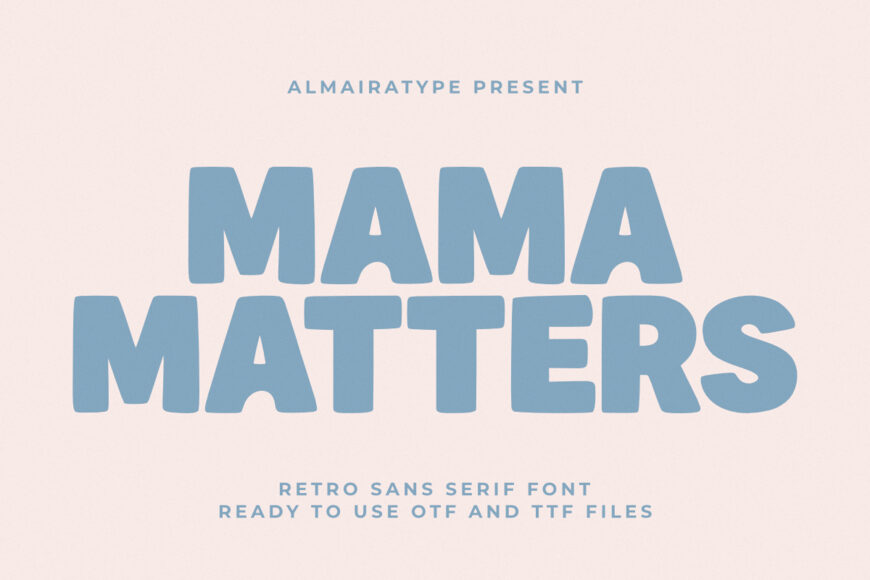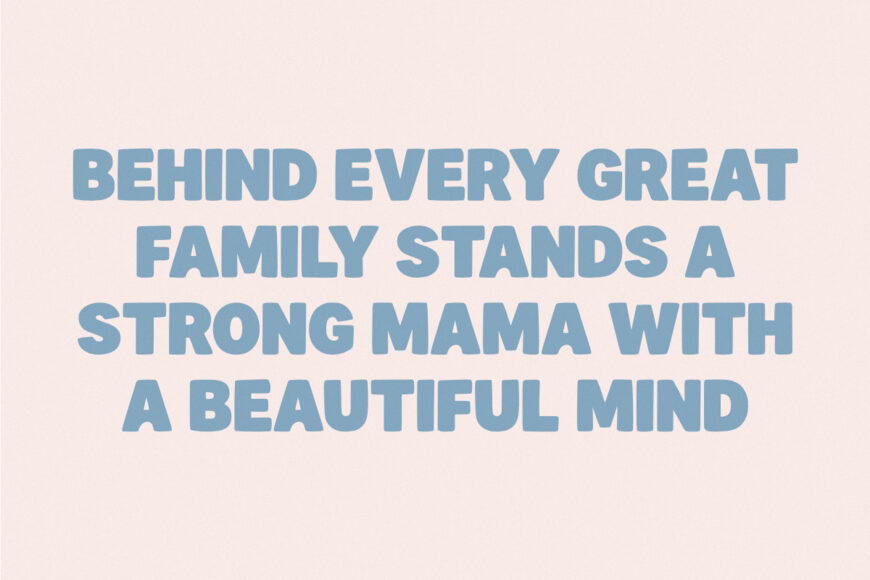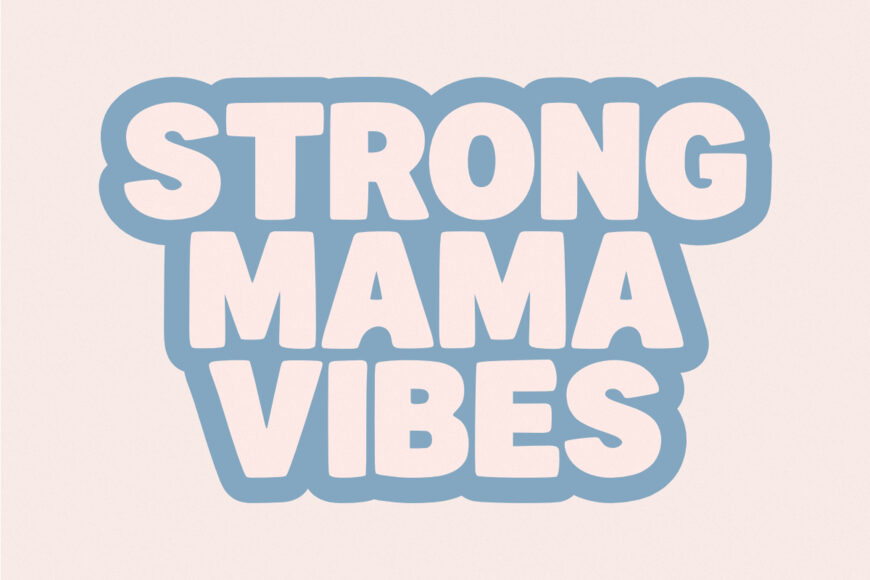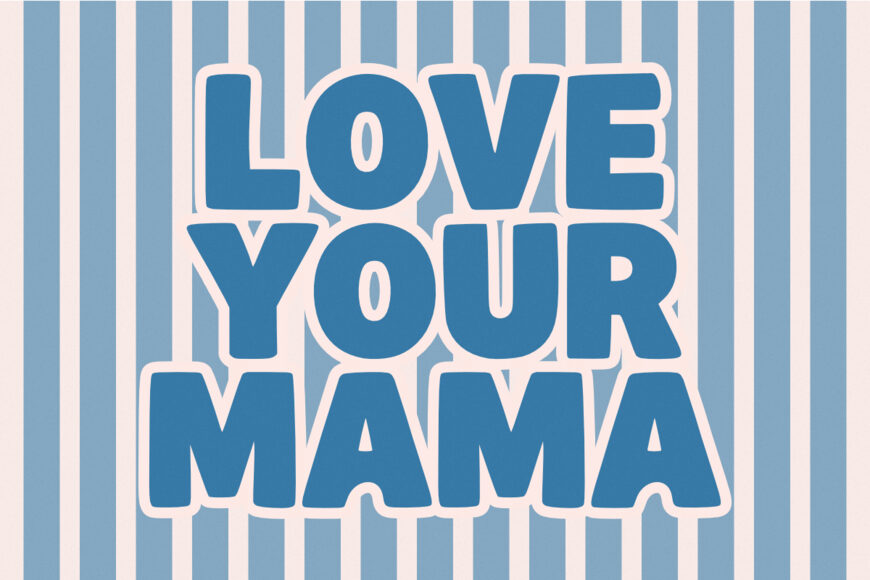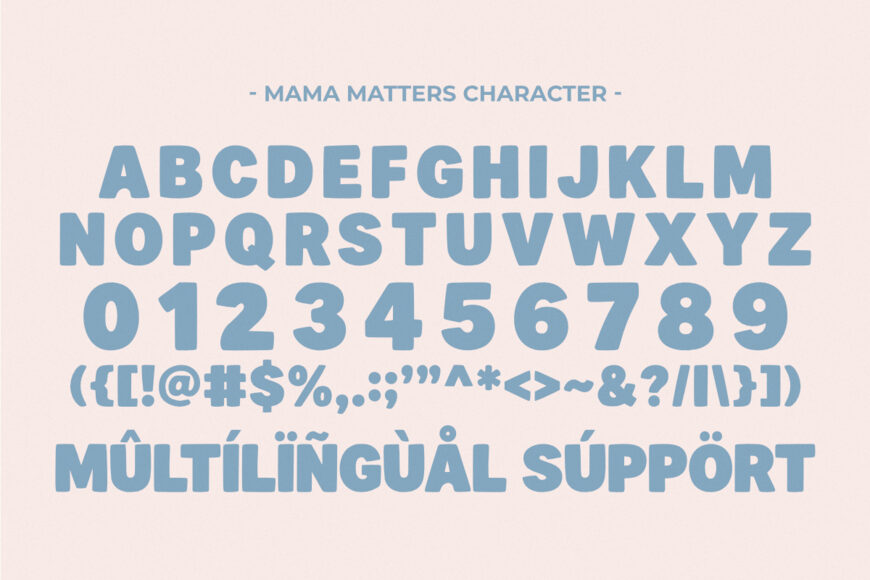
Mama Matters is a retro sans serif font meticulously designed to bring a delightful vintage warmth and high-impact aesthetic to your modern creative projects. Featuring a bubbly, thick structural anatomy with a solid display weight and smoothly rounded geometric contours, this typeface beautifully bridges the gap between classic 70s nostalgia and contemporary commercial design trends.
Whether you are building an eye-catching brand identity, designing trendy motherhood t-shirt lines, customizing unique product packaging layouts, or producing striking social media posters, Mama Matters ensures maximum readability and a distinct professional edge.